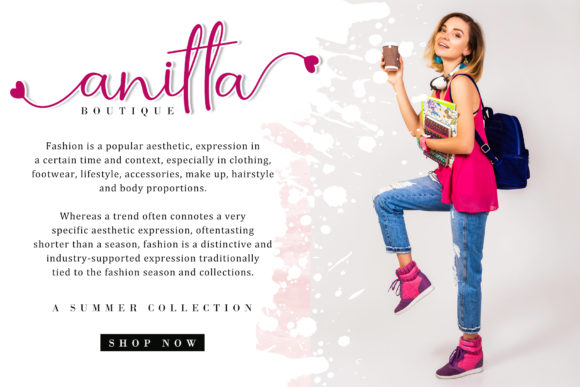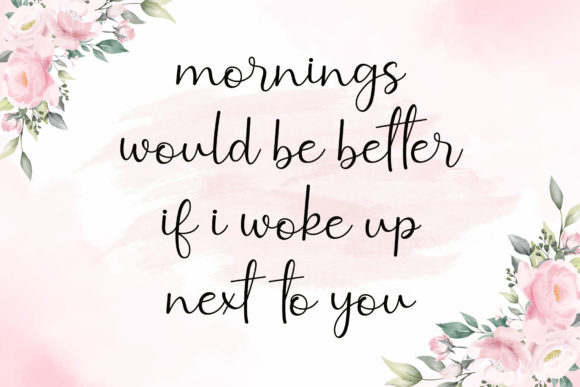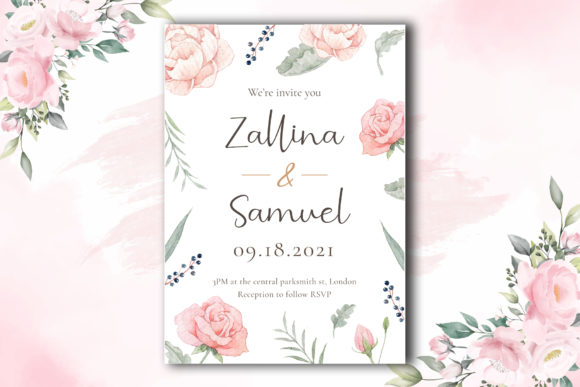
Introduction to Sallsa Font
Sallsa is a sweet and delicate handwritten font.
It looks stunning on wedding invitations, thank you cards, quotes, greeting cards, logos, business cards and every other design which needs a handwritten touch This font is PUA encoded which means you can access all of the glyphs and swashes with ease.